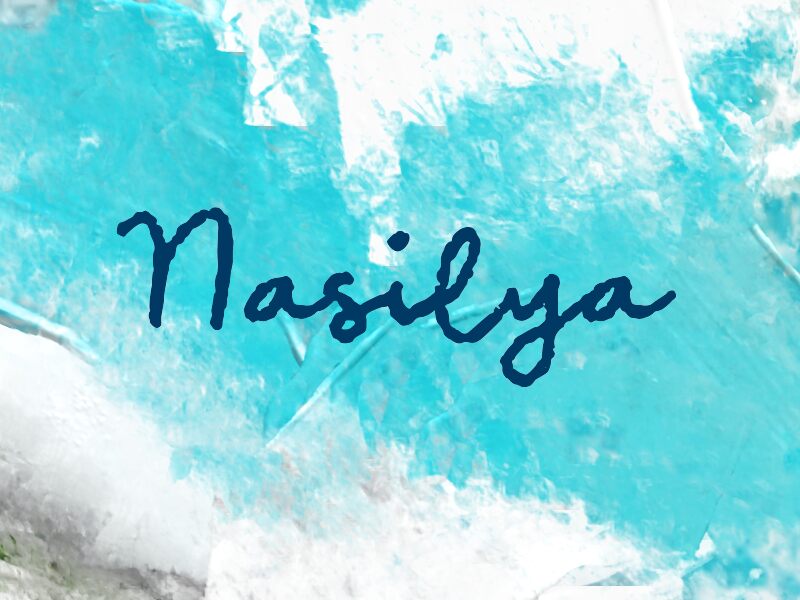
Nasilya font by wep is a handwritten free font featuring a charming personal style. This informal typeface is approachable with its relaxed and artistic style, expressing a modern casual elegance. Full of expressivity and warmth, each letter seamlessly flows to form words and sentences in uniqueness.
Nasilya would be an excellent choice for invitations, posters, brochures, packaging, greeting cards, social media ads, digital graphics, website banners, and logos among other projects. Its approachable vibe makes it fit different creative themes in both print and digital formats. It’s legibility also makes it a reliable choice for both titles and body text.
Nasilya is a beautiful and versatile free font that adds a touch of elegance to your design projects. This font is perfect for a variety of applications, from branding to web design, and is sure to captivate your audience. With its unique style and contemporary flair, Nasilya is an excellent choice for any creative endeavor.